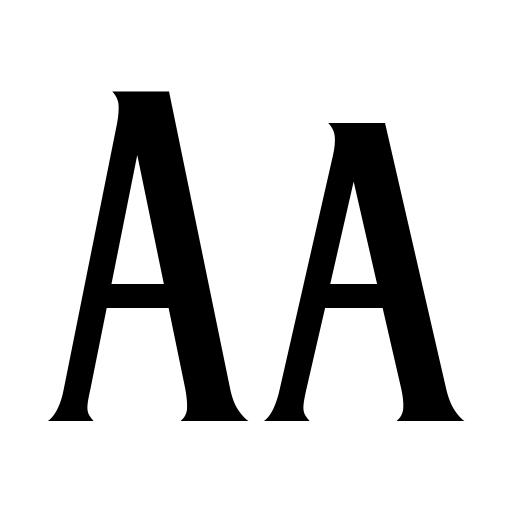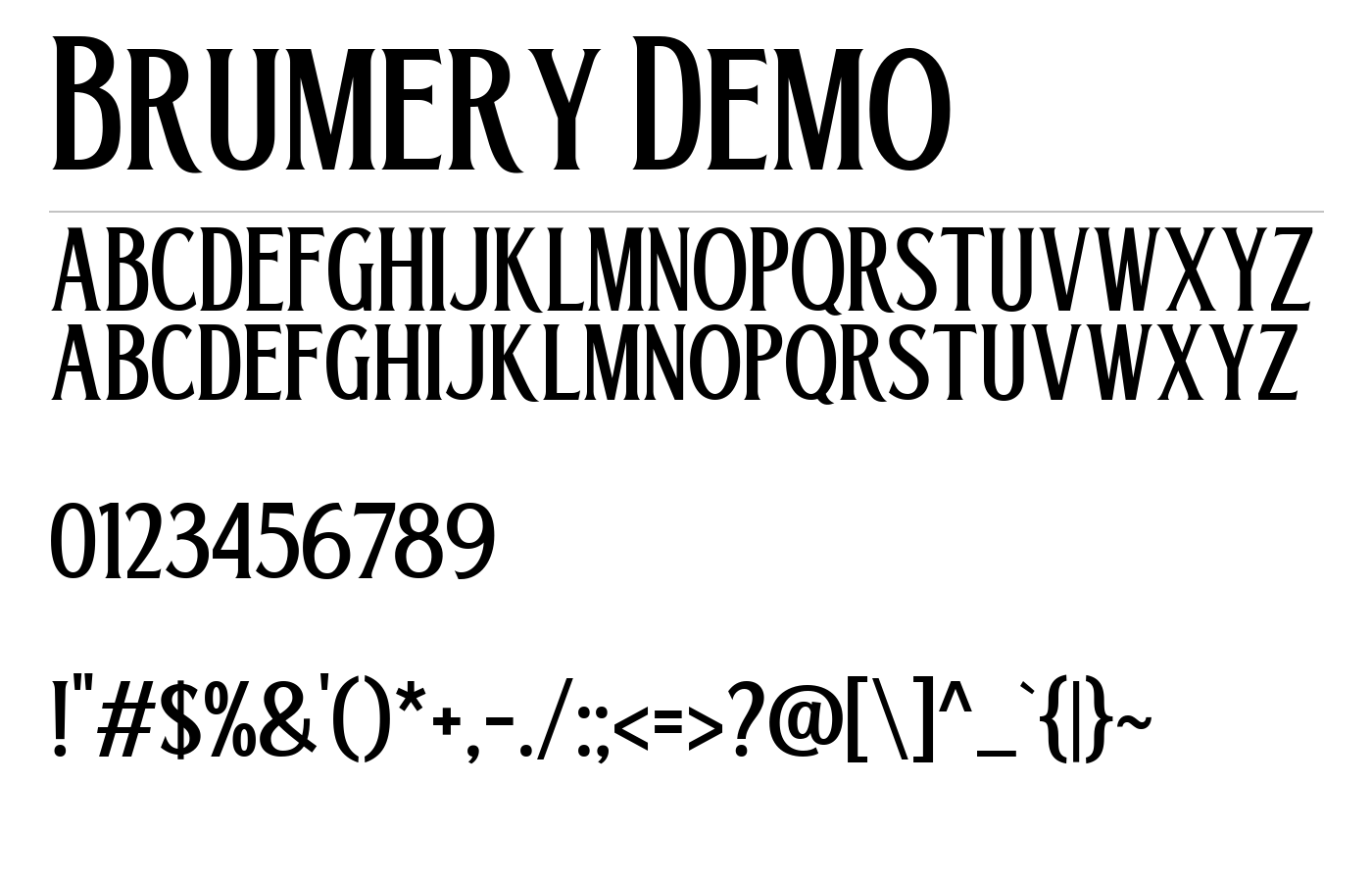
Brumery Demo is a slender serif font with a classic, elegant feel, characterized by its tall, narrow letterforms and high contrast between thick and thin strokes. This font’s sharp, bracketed serifs and refined details make it ideal for sophisticated branding, editorial headlines, and fashion or luxury projects where a timeless yet distinctive appearance is desired. Its narrow width and strong vertical emphasis help it stand out in display settings while maintaining readability and style.
Brumery Demo Font